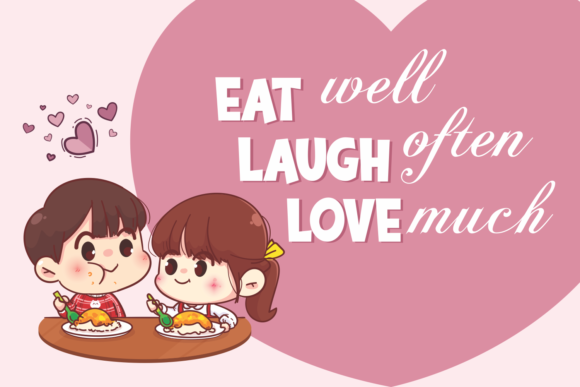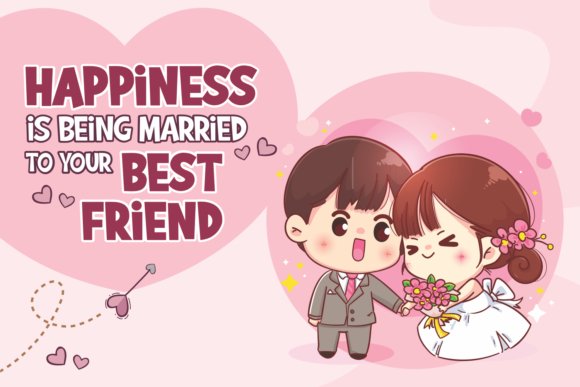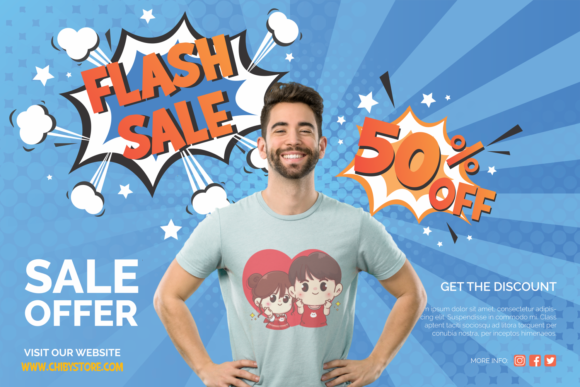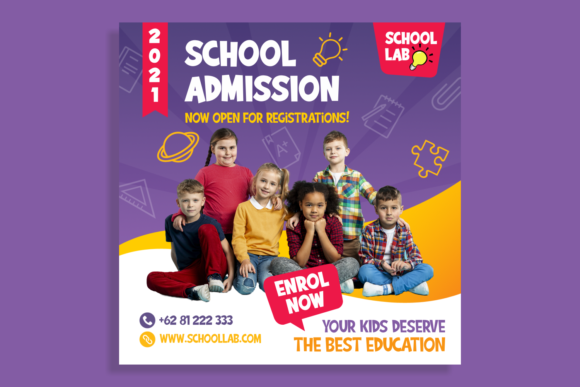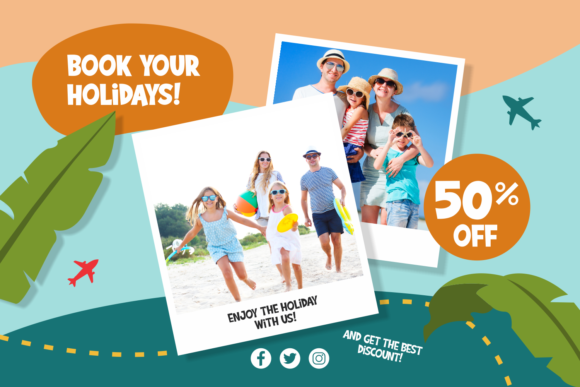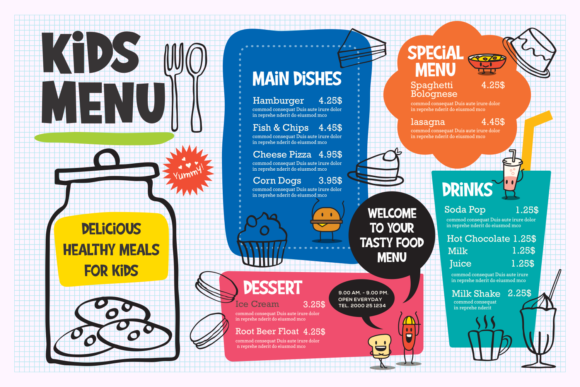
Introducing Chiby Lover Font: The Ultimate Display Font for Creative Projects
Are you tired of using the same old fonts for your creative projects? Look no further! Chiby Lover Font is here to take your designs to the next level. This bold and colorful display font is perfect for crafters, designers, and anyone looking to add a touch of personality to their work. In this article, we’ll dive into the features and benefits of Chiby Lover Font, and explore how it can elevate your creative ideas.
The Friendly Feel of Chiby Lover Font
One of the standout features of Chiby Lover Font is its friendly feel. This font is designed to be approachable and inviting, making it perfect for a wide range of contexts. Whether you’re creating a logo, crafting a social media post, or designing a flyer, Chiby Lover Font is sure to make your message shine. Its friendly demeanor puts your audience at ease, making it an excellent choice for brands looking to build a connection with their customers.
Chiby Lover Font is incredibly versatile, making it a valuable addition to any designer’s toolkit. Its bold and colorful design ensures that it stands out in any context, from digital displays to print materials. Use it to create eye-catching headlines, add emphasis to your text, or craft a statement piece that showcases your brand’s personality. The possibilities are endless with Chiby Lover Font!
What Makes Chiby Lover Font So Special?
So, what sets Chiby Lover Font apart from other display fonts on the market? Here are just a few features that make it a cut above the rest:
- Bold and Colorful Design: Chiby Lover Font is designed to make a statement. Its bold and colorful design ensures that your text stands out, grabbing the attention of your audience.
- Friendly Feel: The friendly feel of Chiby Lover Font makes it approachable and inviting. This font is perfect for brands looking to build a connection with their customers.
- Highly Versatile: Chiby Lover Font is incredibly versatile, making it suitable for a wide range of contexts, from digital displays to print materials.
How to Use Chiby Lover Font in Your Designs
Using Chiby Lover Font in your designs is easy! Here are a few ideas to get you started:
- Logos and Branding: Use Chiby Lover Font to create a bold and colorful logo that showcases your brand’s personality.
- Social Media Posts: Add a touch of personality to your social media posts with Chiby Lover Font. Its friendly feel makes it perfect for engaging with your audience.
- Flyers and Brochures: Use Chiby Lover Font to create eye-catching headlines and add emphasis to your text.
- Digital Displays: Chiby Lover Font is perfect for digital displays, from website headers to digital signage.
Tips and Tricks for Getting the Most Out of Chiby Lover Font
Here are a few tips and tricks for getting the most out of Chiby Lover Font:
- Experiment with Colors: Chiby Lover Font is designed to be colorful, so don’t be afraid to experiment with different colors and combinations.
- Mix and Match Fonts: Chiby Lover Font pairs well with a variety of fonts. Experiment with different combinations to find the perfect look for your design.
- Use it Sparingly: While Chiby Lover Font is bold and colorful, it’s best used sparingly. Use it to add emphasis to your text or create a statement piece.
In conclusion, Chiby Lover Font is a bold and colorful display font that’s perfect for crafters, designers, and anyone looking to add a touch of personality to their work. Its friendly feel and versatility make it an excellent choice for a wide range of contexts, from digital displays to print materials. With its bold and colorful design, Chiby Lover Font is sure to make your creative ideas stand out. So why wait? Add Chiby Lover Font to your toolkit today and take your designs to the next level!